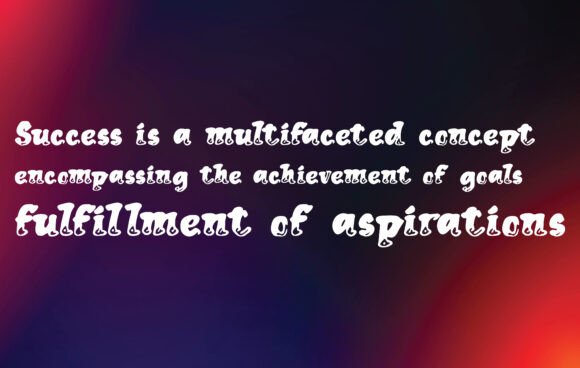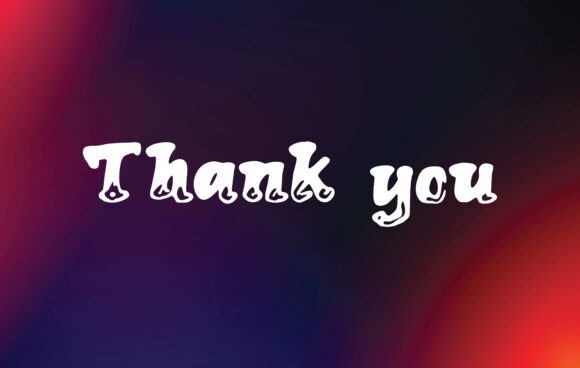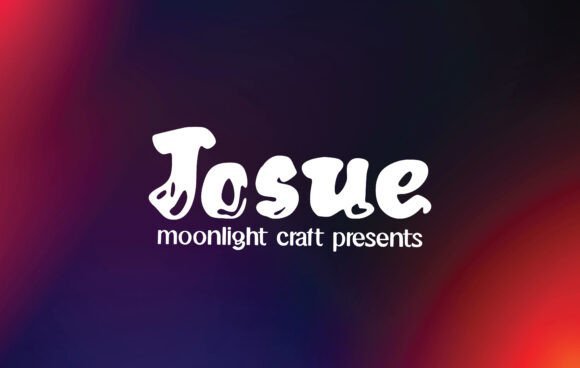
Introduction to Josue Font
Josue is a lovely and beautiful handwritten font.
Key Features of Josue Font
Why Choose Josue Font?
Josue Font offers exceptional quality and versatility, making it a valuable addition to your design toolkit. Whether you’re creating for personal projects or commercial use, Josue Font delivers professional results.